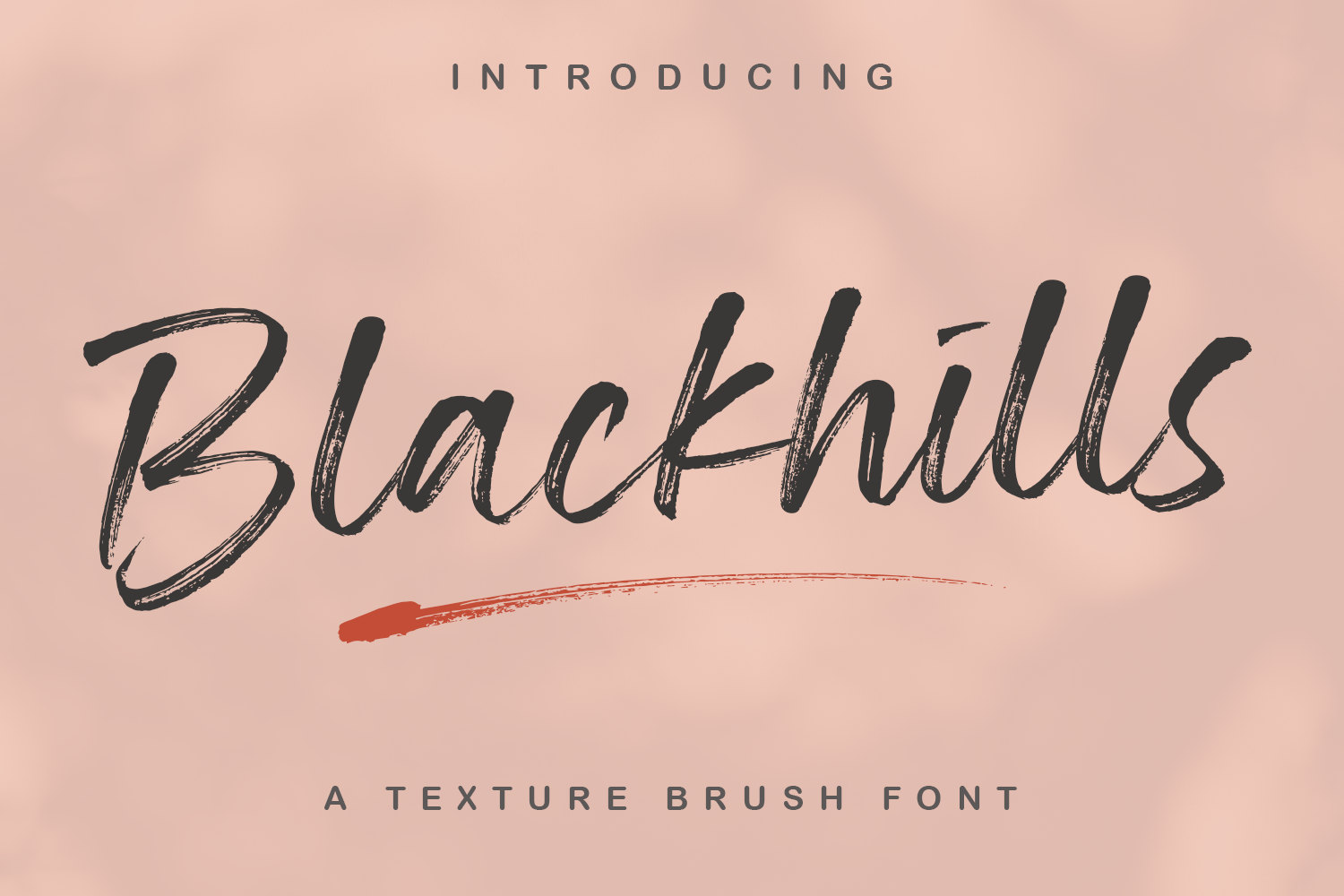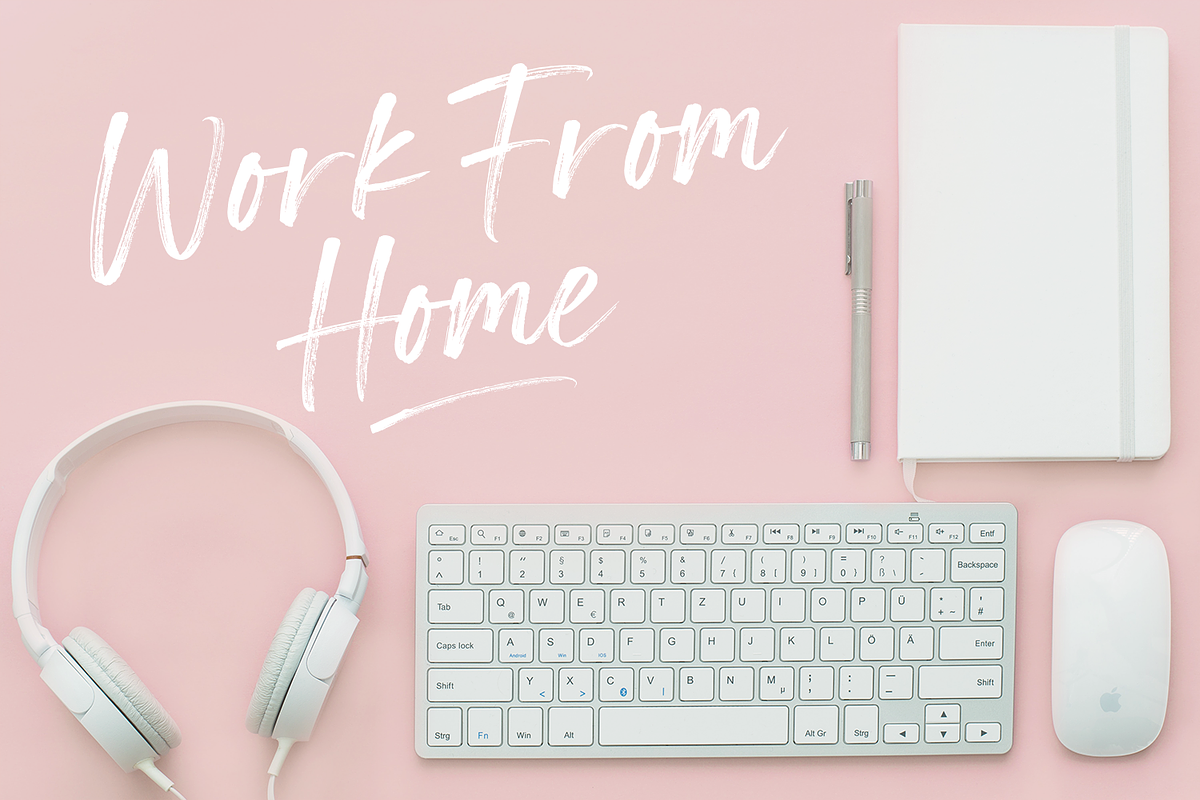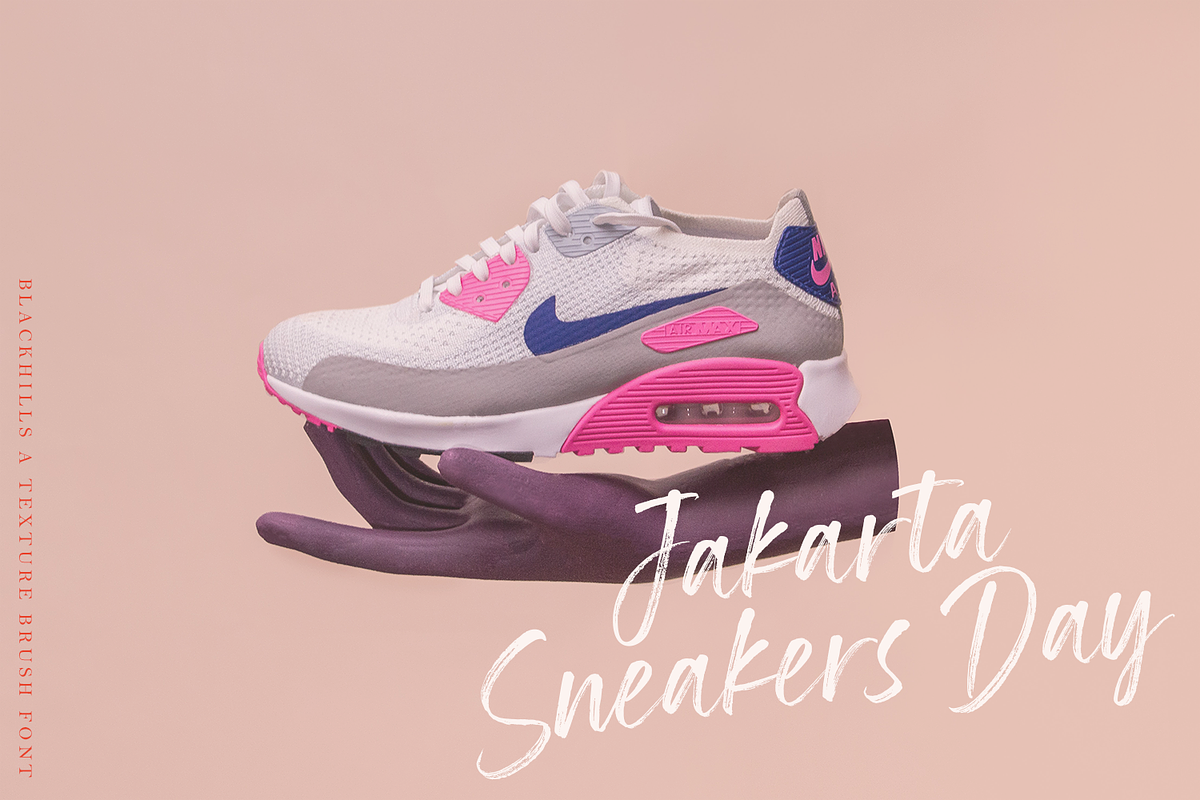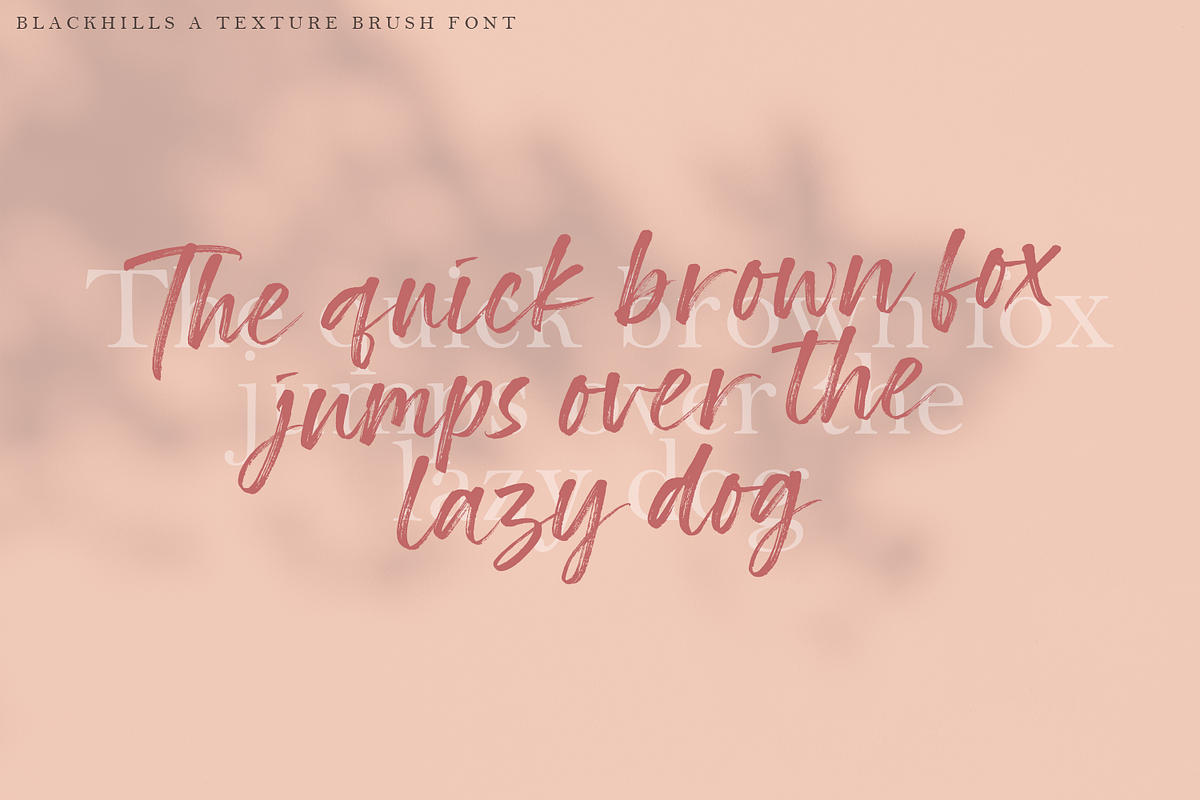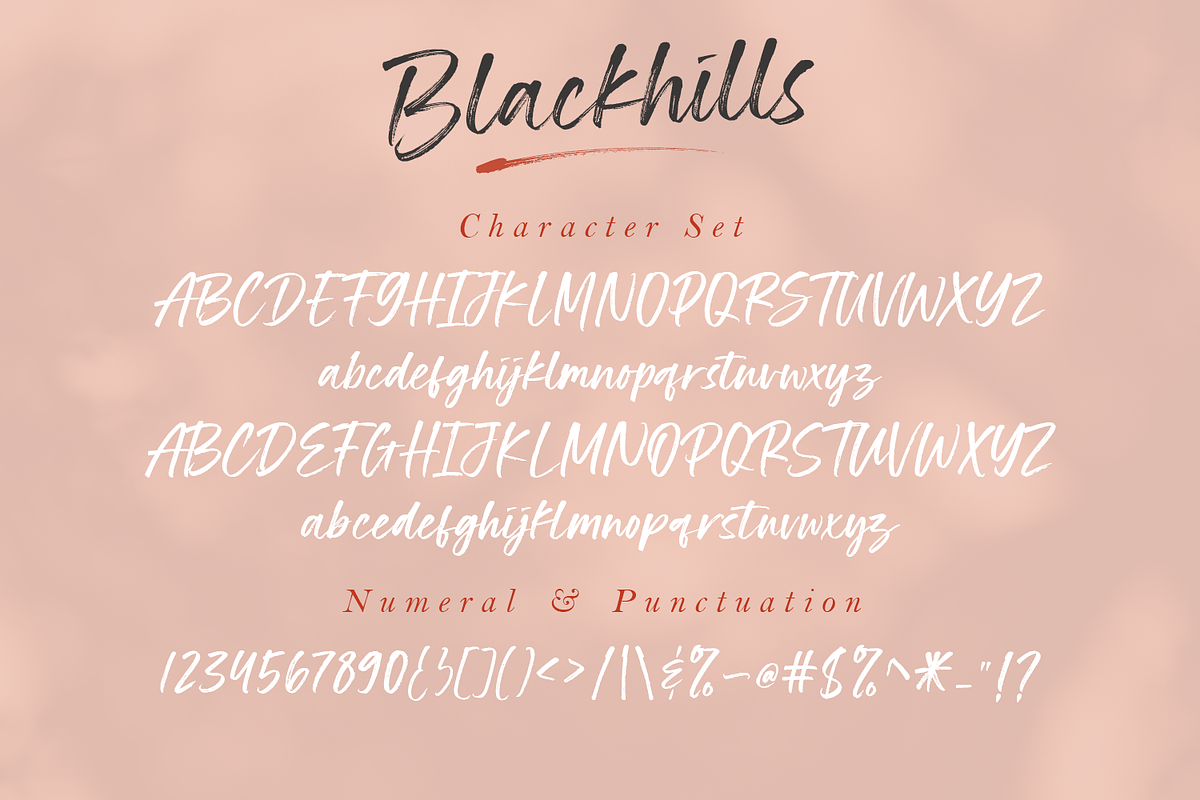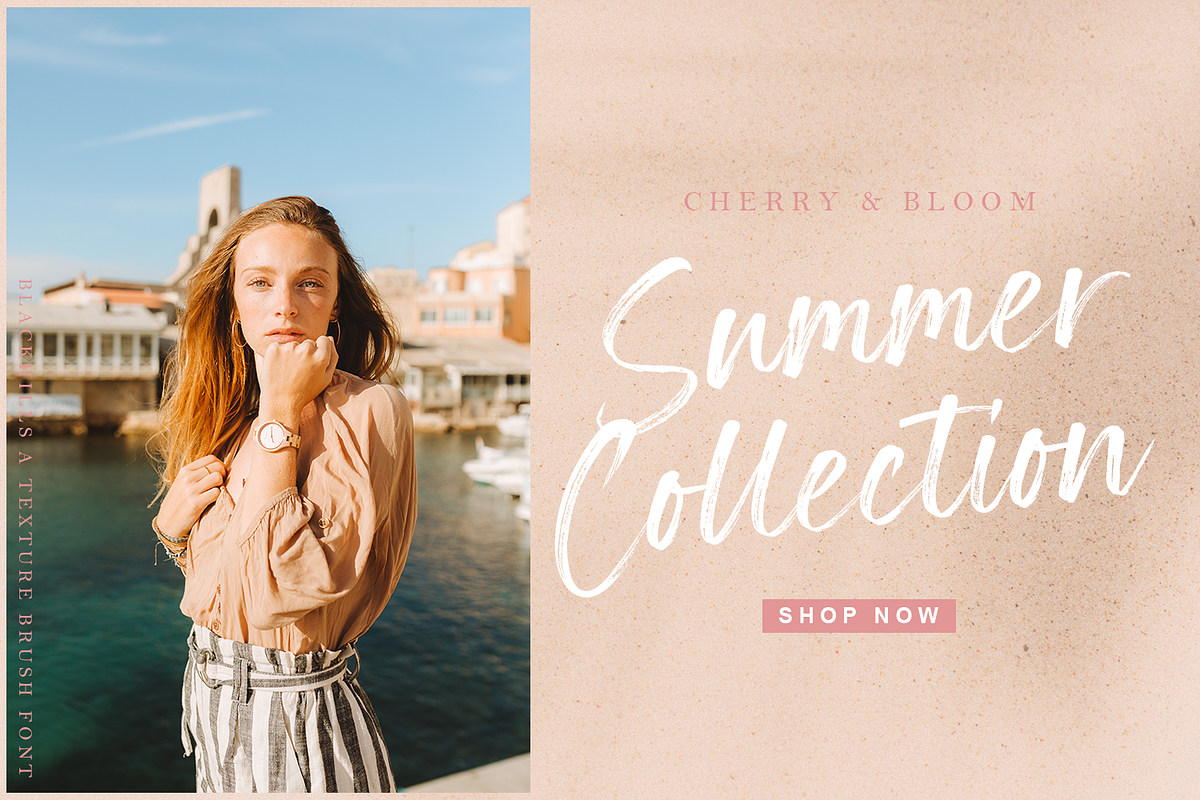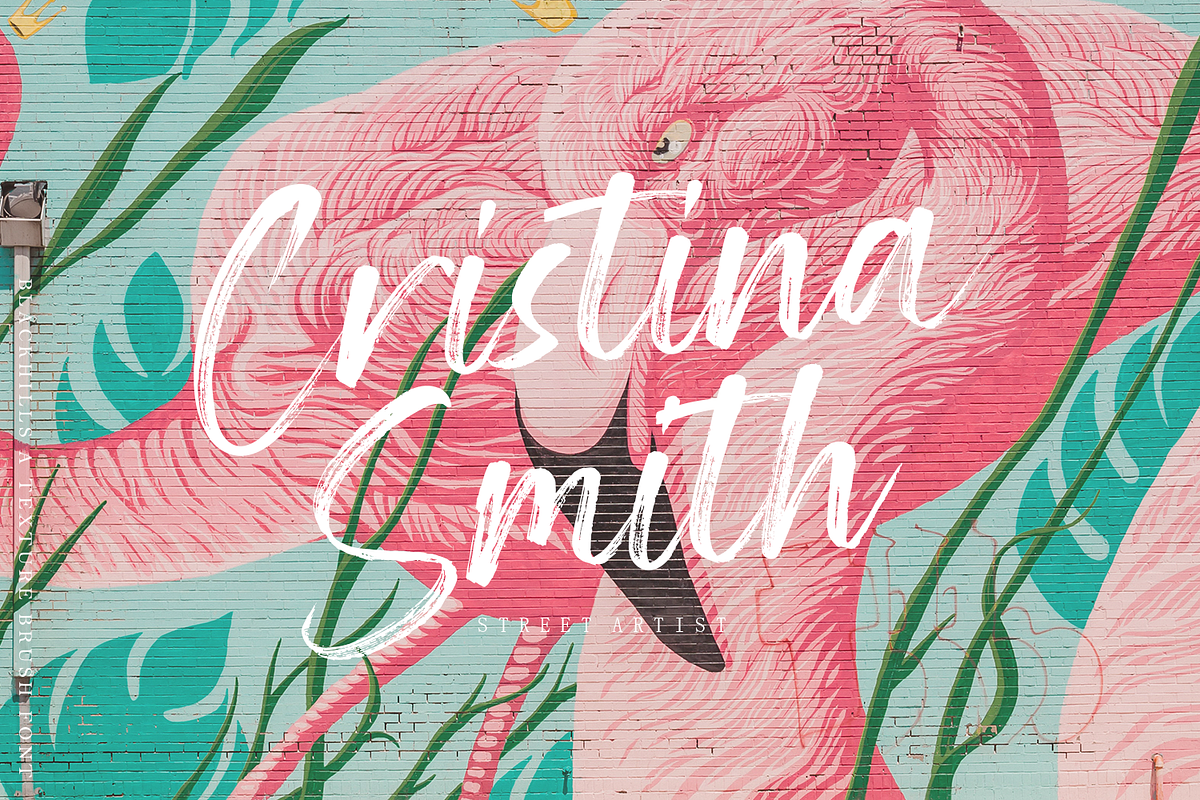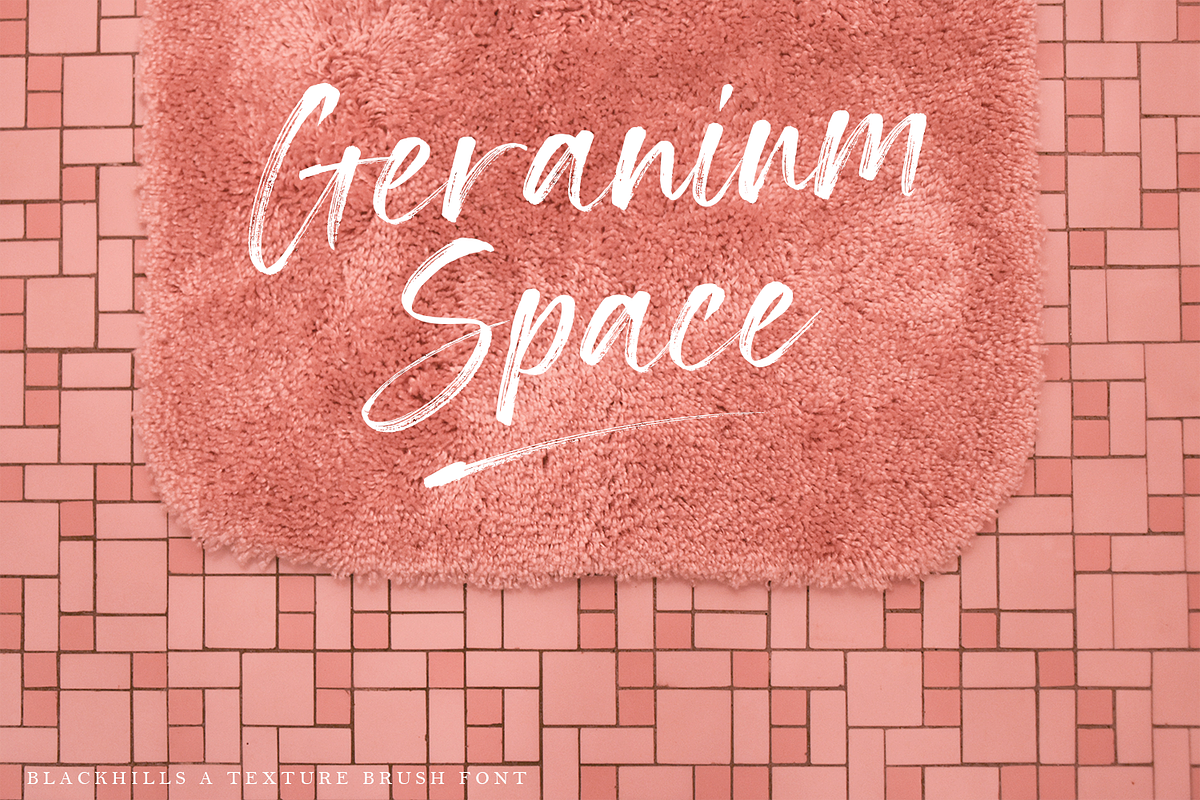
Blackhills - Brush Font
introducing the new font Blackhills A Textured Brush Font is a script type font with a sharp texture. I made Blackhills handwritten on paper with a type of rough brush. at Blackhills I use a traditional style with uppercase and lowercase letters that are almost the same, but still good to look at.
I provide an alternative to uppercase and lowercase letters, to give the impression like my own handwriting when displayed.
This font is suitable for various projects, such as invitations, stationery, social media, logos, weddings, branding, graphic design, with the addition of a few swashes. and can be combined with various types of serif fonts to perfect the project you want to work on.